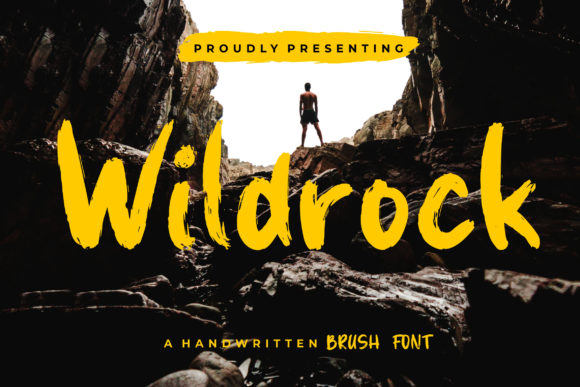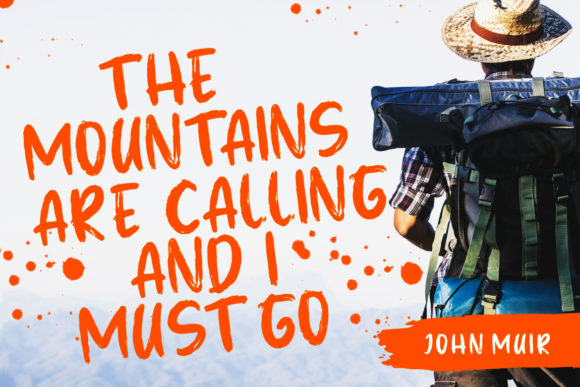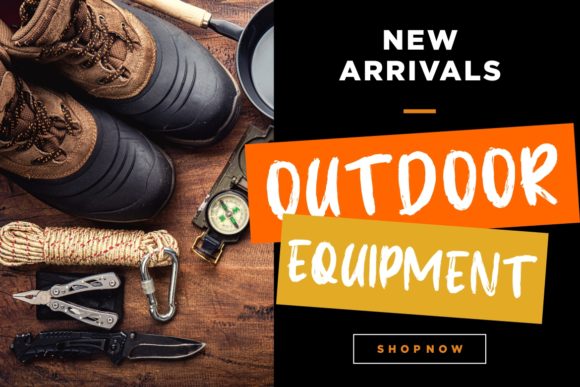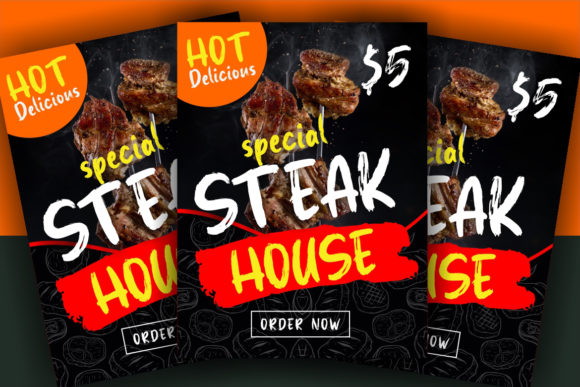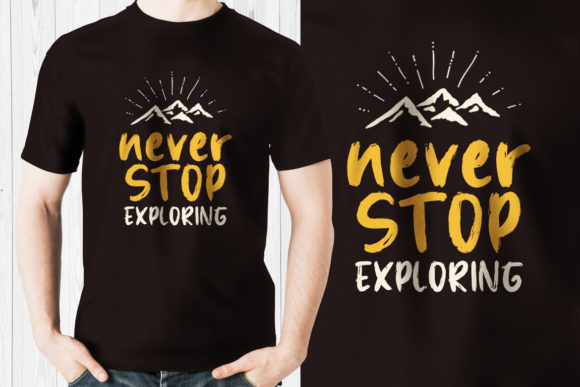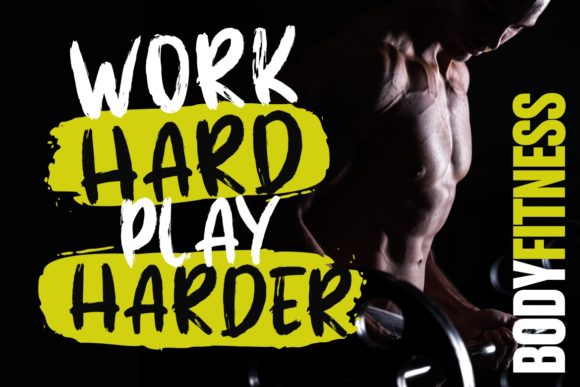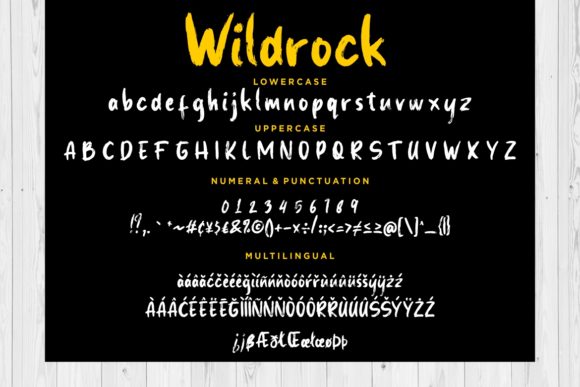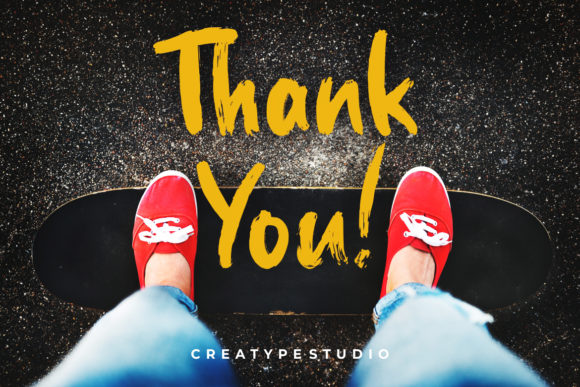
Wildrock Font
About Wildrock Font
Wildrock is a distinct handwritten font, designed with the help of a unique brush pen. Add it to your creative ideas and notice how it makes them stand out!